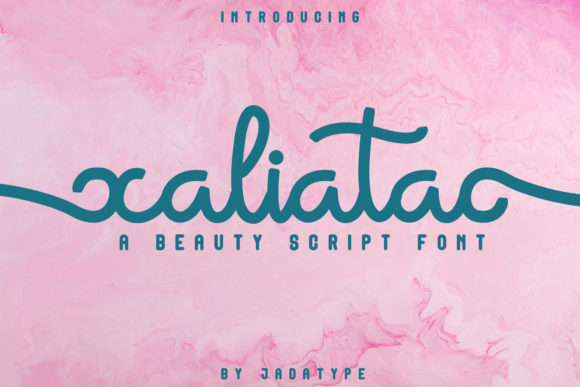
The Caliata Font: A Charming and Elegant Addition to Your Design Arsenal
Have you ever been in the middle of a design project, pouring your heart and soul into every detail, only to hit a roadblock when it comes to choosing the perfect font? I certainly have. Recently, I was working on a wedding invitation design for a client, and I just couldn’t seem to find the right fit. That’s when I stumbled upon the stunning Caliata font. ✨
Caliata feels equally charming and elegant. It looks stunning on wedding invitations, thank you cards, quotes, greeting cards, logos, business cards, and every other design which needs a handwritten touch. This font is PUA encoded, which means you can access all of the glyphs and swashes with ease!
• ✨ Elegant and charming handwritten aesthetic
• 💕 Perfect for wedding invitations, greeting cards, and more
• 🎨 Highly versatile and can be used for a variety of design projects
While Caliata is an amazing font, there are a few things to keep in mind: 🤔
• ⚠️ Some users may find the font a bit too ornate for certain projects
• ⚠️ May not be suitable for very small font sizes or body text
The Story Behind Caliata
Caliata was designed with the intention of creating a beautiful, elegant handwritten font that would add a touch of sophistication to any design. The designer aimed to create a font that would be perfect for wedding invitations, greeting cards, and other formal designs. 💕
Q: Is Caliata suitable for body text or small font sizes?
A: While Caliata is a beautiful font, it may not be the best choice for body text or very small font sizes due to its ornate and elegant nature.